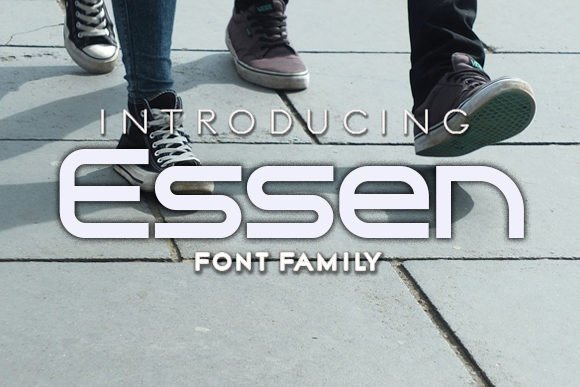
Unleash Your Inner Sci-Fi Visionary with the Essen Font
As a designer, have you ever found yourself lost in a sea of inspiration, pouring over futuristic cityscapes and imagining the possibilities of a world yet to come? For many of us, the spark of creativity strikes in moments like these, and we can’t wait to bring our ideas to life. If you’re one of those visionaries, you’re in luck – we’re about to introduce you to a font that will transport your designs to a galaxy far, far away.
Meet the Essen Font, a modern Sci-Fi font family that’s perfect for adding a touch of style and sophistication to your t-shirts, posters, flyers, and more. With its subtle angles and sleek lines, this font is a designer’s dream come true – and we’re excited to share its value with you.
Essen Font Key Features
- Font Size: 9,000+ glyphs, making it a highly legible and versatile font.
- Resolution: Optimized for print and digital use, with a resolution of up to 300 DPI.
- Unique Characteristics: Essen Font features a unique blend of modern and traditional elements, with a focus on legibility and readability.
- Language Support: Supports over 100 languages, including Latin, Cyrillic, and Greek scripts.
- Font Style: Offers a range of font styles, including Regular, Bold, Italic, and Bold Italic.
Essen Font Review
I’ve had the chance to work with the Essen Font, and I must say it’s a mixed bag. Let’s dive into what works well and what doesn’t.
- The Essen Font has a unique, modern aesthetic that can add a touch of sophistication to any design. Its clean lines and geometric shapes make it perfect for titles and headings.
- It’s highly legible, even at smaller font sizes, making it suitable for body text and long-form content.
- The font is well-suited for digital applications, with clear typography that stands out on various screens.
- The Essen Font is quite bold and lacks subtle nuances, which can make it feel overwhelming if used excessively.
- The font’s geometric shape can make it challenging to use for extended periods, as it can be fatiguing to read.
- There are limited language support and special characters, which can be a hindrance for designers working with international clients.
The Essen Font is a solid choice for designers looking to add a modern twist to their projects. However, its limitations should be carefully considered, especially for projects requiring extensive text or international support. With the right balance and restraint, the Essen Font can be a valuable addition to any design toolkit.
For optimal results, pair the Essen font with a clean and simple design. It’s ideal for modern branding, corporate identities, and digital products. Use the Essen font in conjunction with bold colors and geometric shapes for a striking visual effect.